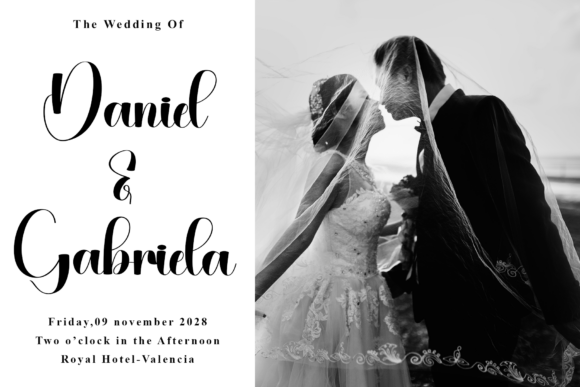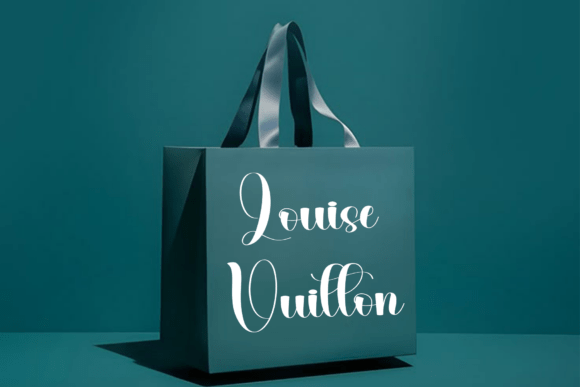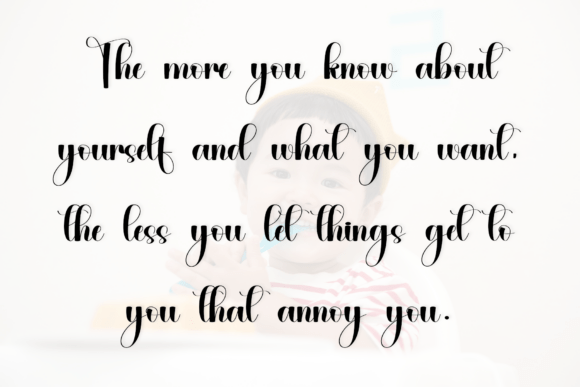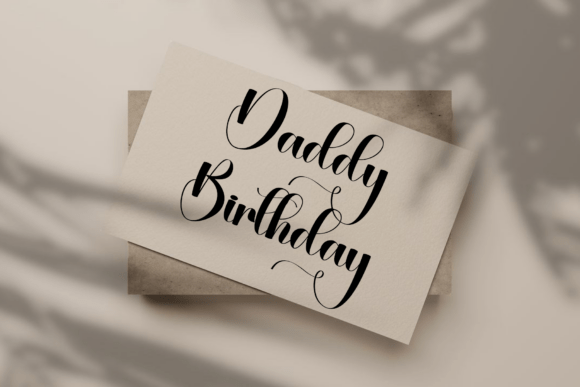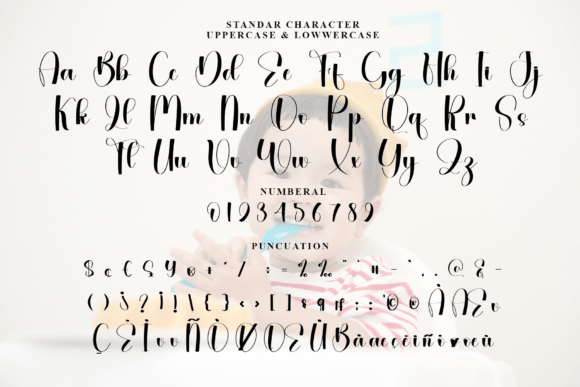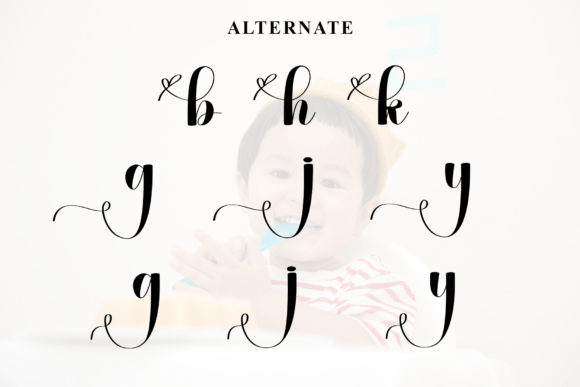
Introducing Big Baby Font: The Timeless Handwritten Choice for Designers and Crafters
Are you on the hunt for a font that adds a touch of elegance and whimsy to your designs? Look no further than Big Baby Font, a lovely and timeless handwritten font that’s perfect for creating eye-catching logos, branding, and quotes. With its unique and beautiful touch, Big Baby Font is sure to make your designs come alive!
The Characteristics of Big Baby Font
Big Baby Font is a handwritten font that boasts a range of characteristics that make it stand out from the crowd. Each letter has a unique and beautiful touch, with subtle variations in line width and texture that give it a delightfully organic feel. The font is highly legible, making it perfect for use in a variety of design applications, from logos and branding to quotes and social media graphics.
Why Choose Big Baby Font?
So why should you choose Big Baby Font for your next design project? Here are just a few reasons why this font stands out:
- Timeless appeal: Big Baby Font has a timeless quality that ensures it will never go out of style. Its classic, handwritten look is perfect for designers who want to create designs that are both modern and nostalgic.
- Elegant and whimsical: Big Baby Font strikes the perfect balance between elegance and whimsy, making it perfect for designers who want to create designs that are both sophisticated and playful.
- Unique and beautiful touch: Every letter in Big Baby Font has a unique and beautiful touch that adds a touch of personality to your designs.
- Highly legible: Big Baby Font is highly legible, making it perfect for use in a variety of design applications, from logos and branding to quotes and social media graphics.
Using Big Baby Font in Your Designs
Big Baby Font is incredibly versatile, making it perfect for use in a wide range of design applications. Here are just a few ideas to get you started:
- Logos and branding: Big Baby Font is perfect for creating eye-catching logos and branding materials that are both elegant and whimsical.
- Quotes and social media graphics: Big Baby Font is highly legible and perfect for use in quotes and social media graphics, making it a great choice for designers who want to create engaging and shareable content.
- Stationery and invitations: Big Baby Font is perfect for use in stationery and invitations, adding a touch of elegance and whimsy to your designs.
Tips for Getting the Most Out of Big Baby Font
Here are a few tips for getting the most out of Big Baby Font:
- Experiment with different colors and textures: Big Baby Font looks great in a range of colors and textures, so don’t be afraid to experiment and find the combination that works best for your design.
- Use it in combination with other fonts: Big Baby Font pairs perfectly with a range of other fonts, so try using it in combination with other fonts to create a unique and eye-catching design.
- Pay attention to spacing and kerning: As with any font, it’s essential to pay attention to spacing and kerning to ensure that your design looks its best.
Big Baby Font is a timeless handwritten font that’s perfect for designers and crafters who want to create eye-catching logos, branding, and quotes. With its unique and beautiful touch, Big Baby Font is sure to make your designs come alive! Whether you’re a seasoned designer or just starting out, Big Baby Font is a great choice for anyone looking to add a touch of elegance and whimsy to their designs.
So why not give Big Baby Font a try today and see the difference it can make in your designs?